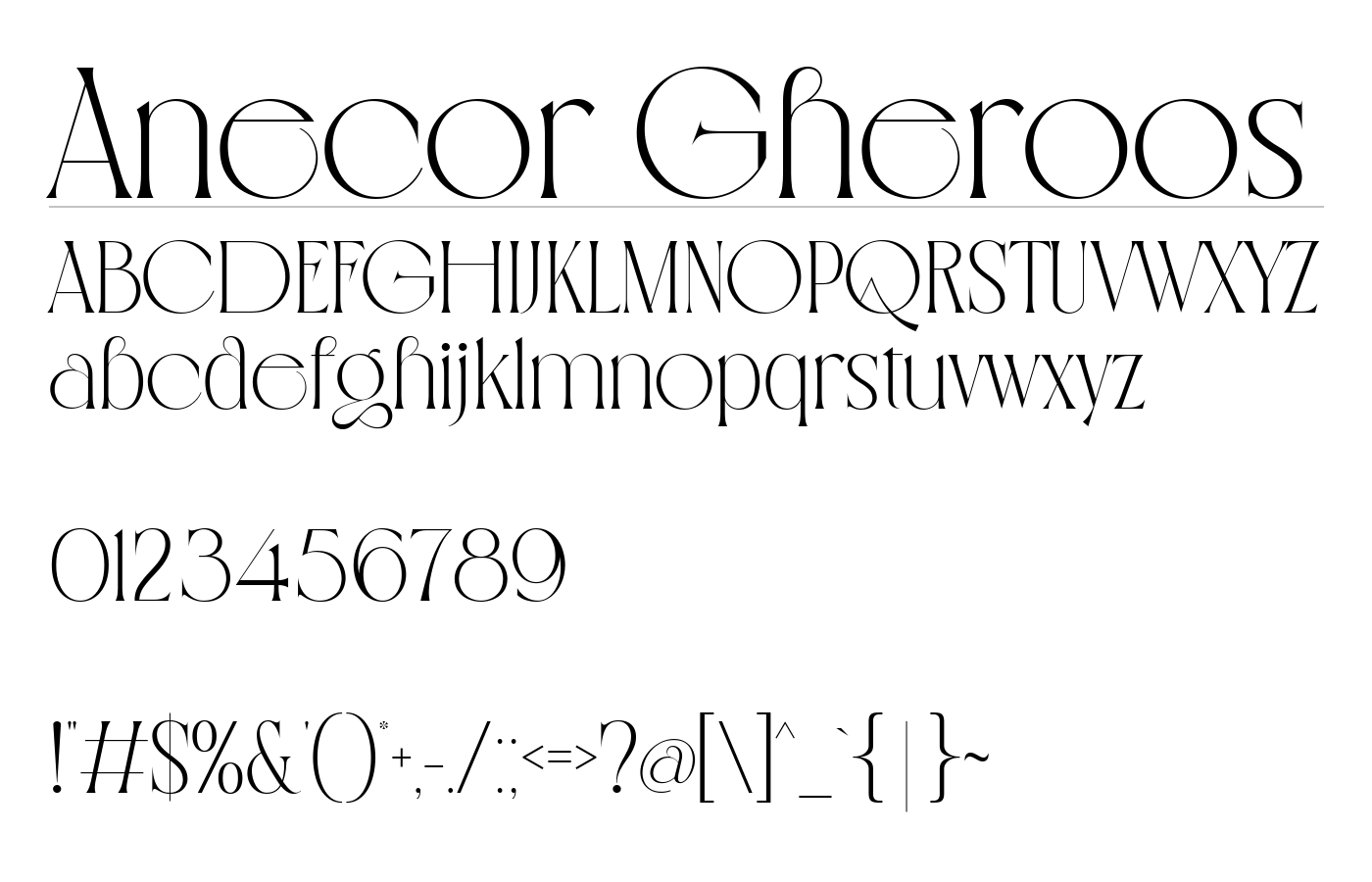
Anecor Gheroos is a sleek serif typeface with a high contrast between thick and thin strokes, giving it an elegant and modern feel. Its tall, narrow letterforms feature delicate, sharp serifs and unique ornamental details that add a creative, sophisticated touch, making it ideal for luxury branding, editorial headlines, and fashion design. This font’s refined style works best in display settings where its distinctive character can shine.
Anecor Gheroos Font
About Anecor Gheroos Font
| Font family | Anecor Gheroos Font |
| Designer | Burhan Afif |